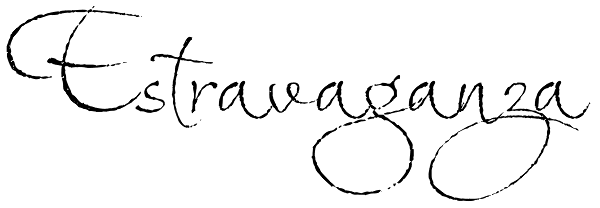
Estravaganza
Estravaganza is an elegant, finely crafted script, with an uneven, drizzled paint line. It has the delicacy of gossamer while boasting the extravagance of bold swashes and loops. Think "ballet-like femininity offset by the distressed paint drizzle...